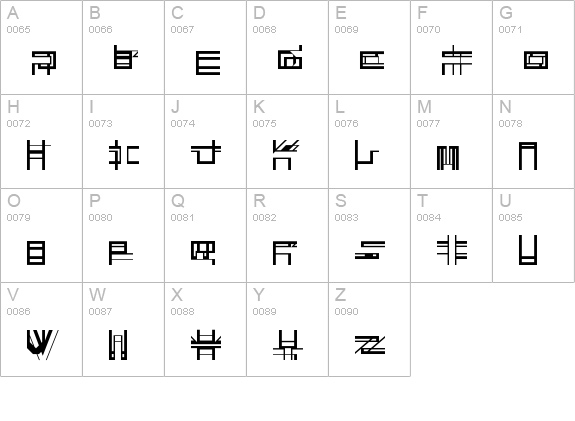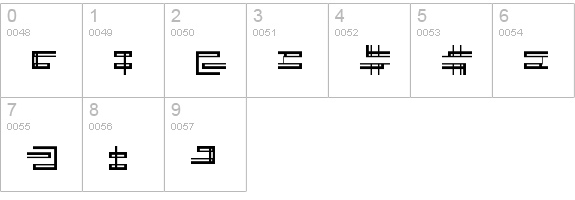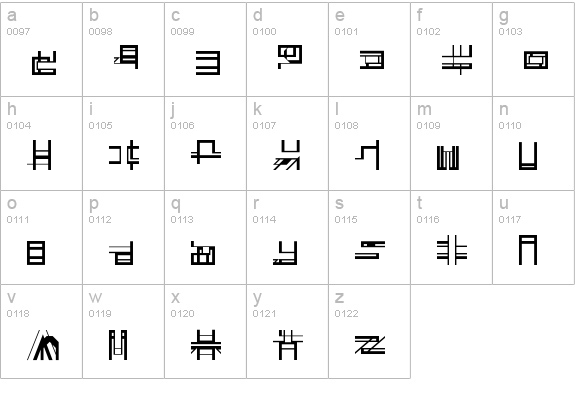
City-Street Font Details
City-Street font is a modern and stylish typeface perfect for any urban-inspired design project. With its bold and eye-catching letterforms, City-Street font adds a touch of sophistication and edge to your designs. Whether you're working on a poster, logo, or website, this versatile font will make your text stand out. The best part is that City-Street font is completely free to download at FontsMarket.com. You can easily add this unique font to your collection and use it in both personal and commercial projects without any restrictions. Don't miss out on the opportunity to enhance your designs with the sleek and contemporary City-Street font. Download it now and let your creativity flow!